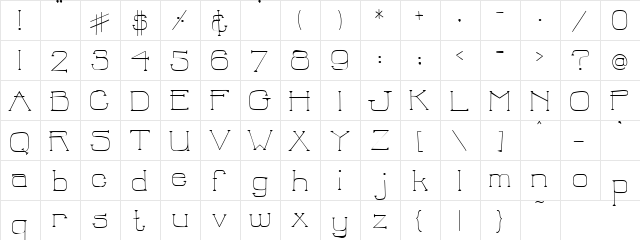
PC Americana Regular
Design Context for PC Americana Typeface
PC Americana is a composed and adaptable typeface that performs quietly and consistently across a wide range of design contexts.